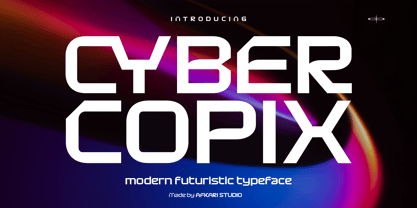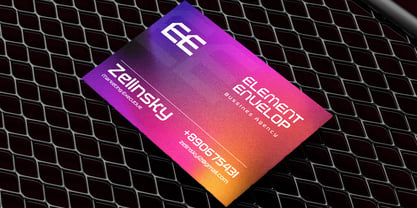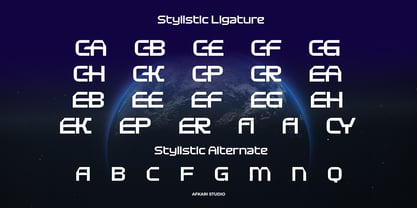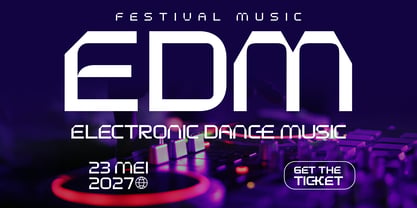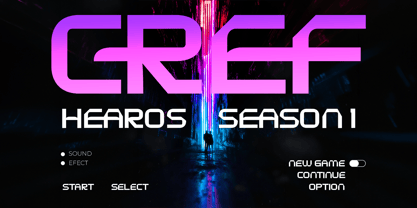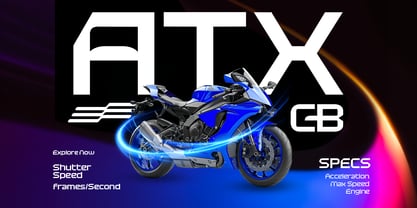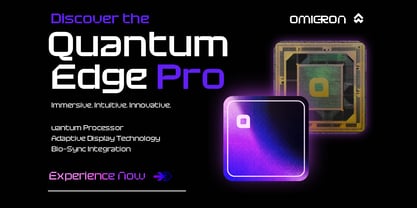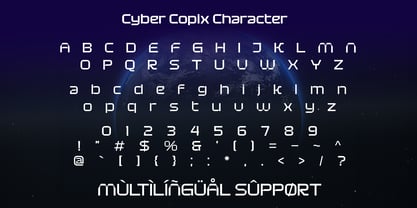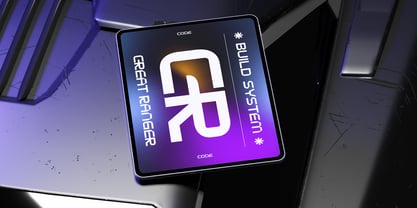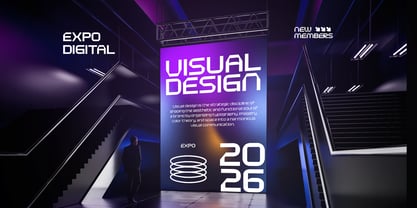
Cyber Copix
Die Schriftfamilie Cyber Copix wurde von Musthafa Kamal Emje entworfen und von Afkari Studio veröffentlicht. Cyber Copix enthält 2 Stile und Familienpaketoptionen.
Cyber Copix is a modern futuristic sci-fi font built for creators who want bold digital aesthetics and cutting-edge visual impact. Inspired by cyberpunk culture, advanced technology interfaces, robotics, and futuristic gaming environments, this typeface combines sharp geometric construction with sleek modern styling.
With its clean lines, strong structure, and high-tech personality, Cyber Copix delivers a powerful futuristic atmosphere that instantly elevates your designs. The font is designed to stand out in both digital and print applications, making it ideal for projects that require innovation, speed, and modern energy.
Whether you’re creating esports branding, sci-fi movie titles, technology campaigns, gaming graphics, or futuristic UI concepts, Cyber Copix gives your typography a bold and professional futuristic identity.
Highlighted Features:
- Complete set of uppercase and lowercase letters, numerals, and punctuation marks
- Clean, sharp, and high-tech visual style
- Futuristic geometric letterforms with modern sci-fi aesthetics
- Multilingual support including characters such as ä, ö, ü, Ä, Ö, Ü, ß, ¿, and ¡
Step into the future with Cyber Copix—a bold sci-fi typeface designed to power up your creative projects with modern digital energy, futuristic style, and unforgettable visual impact.